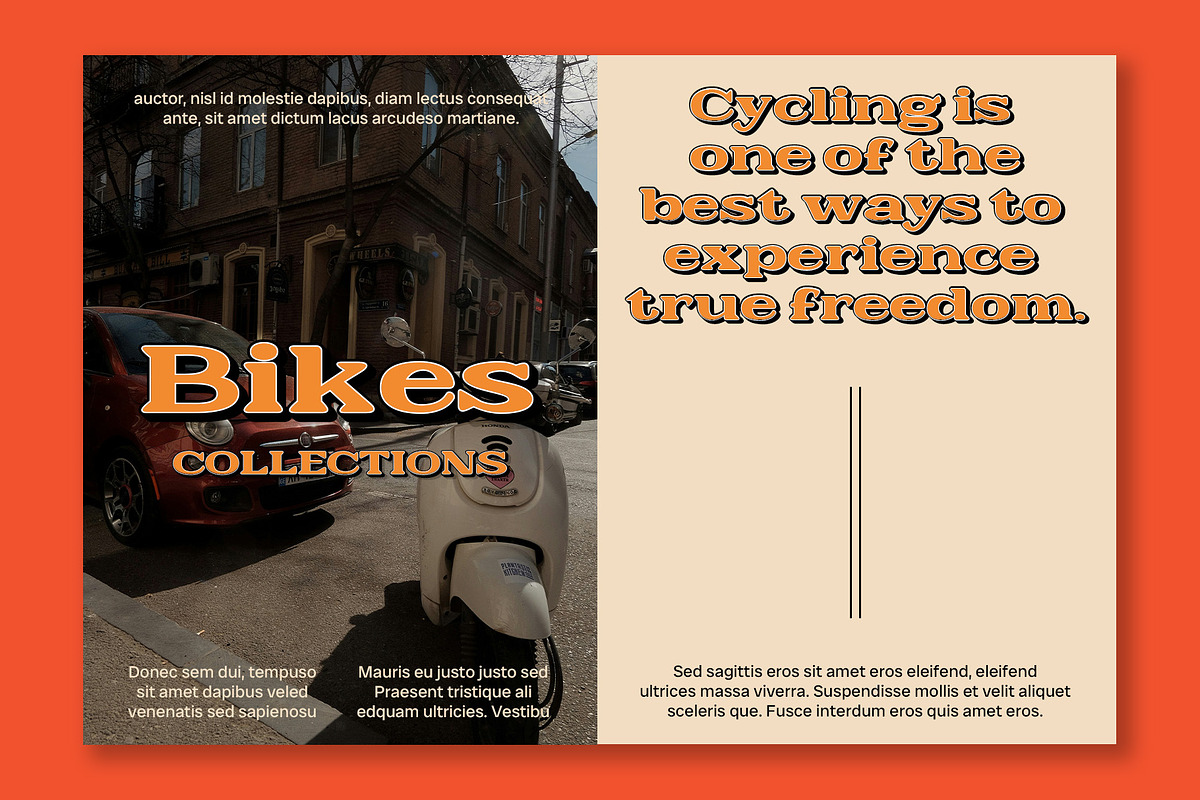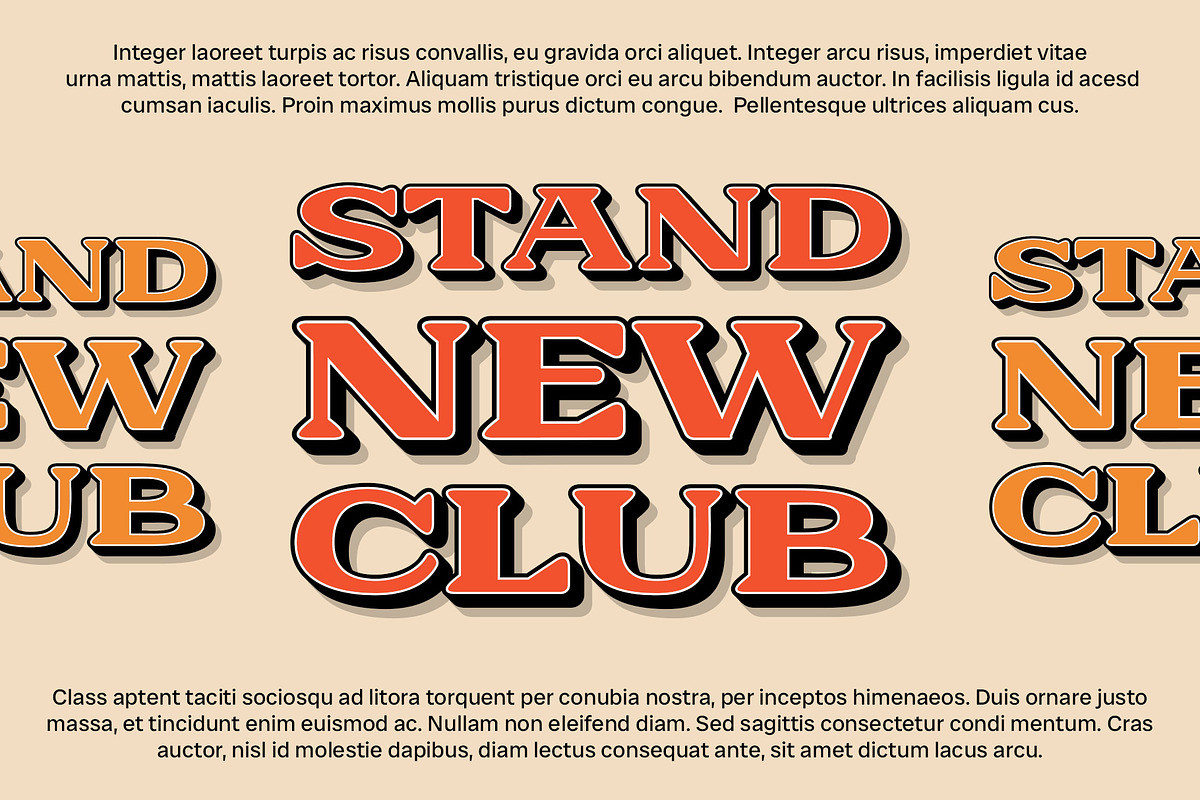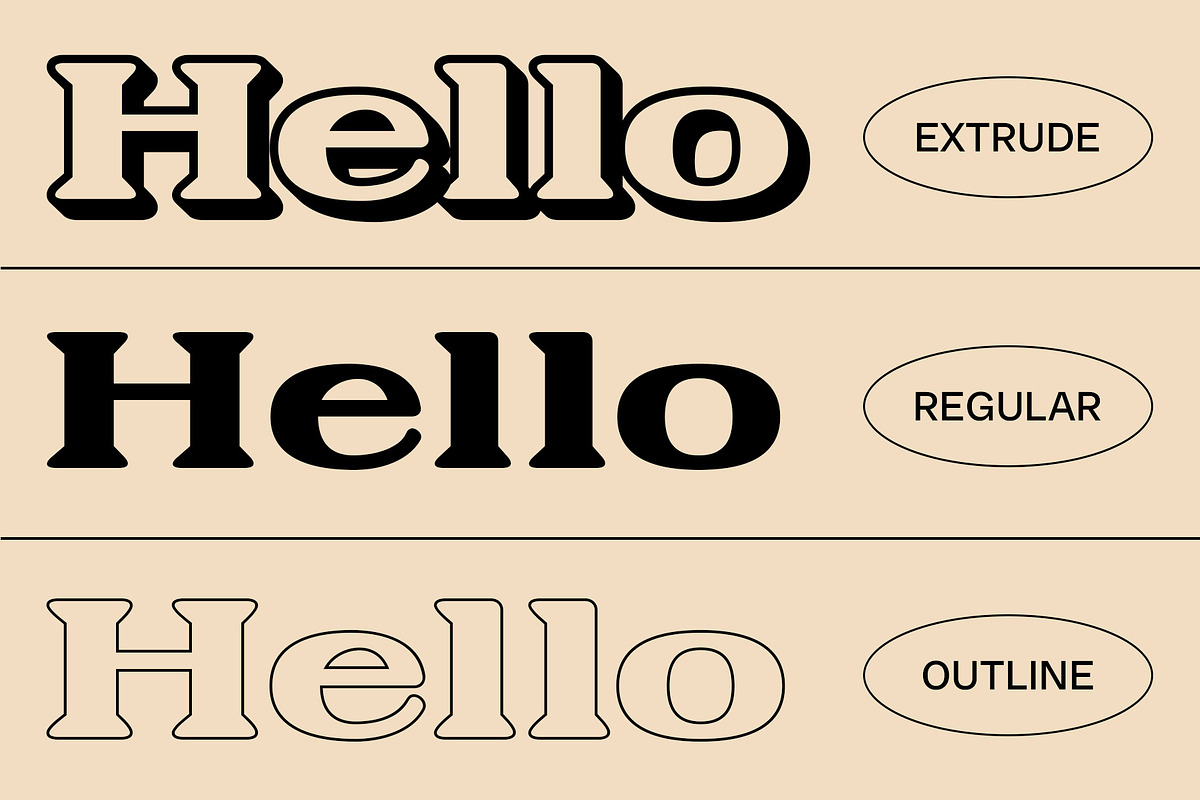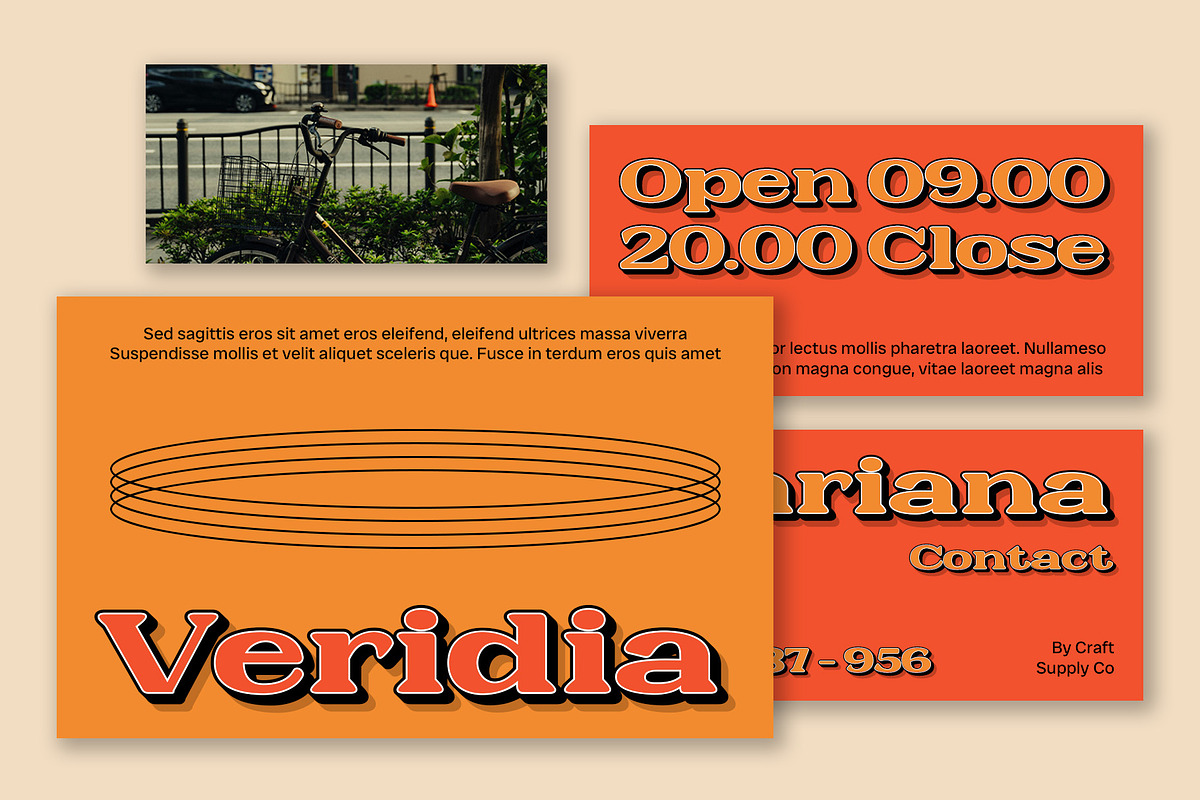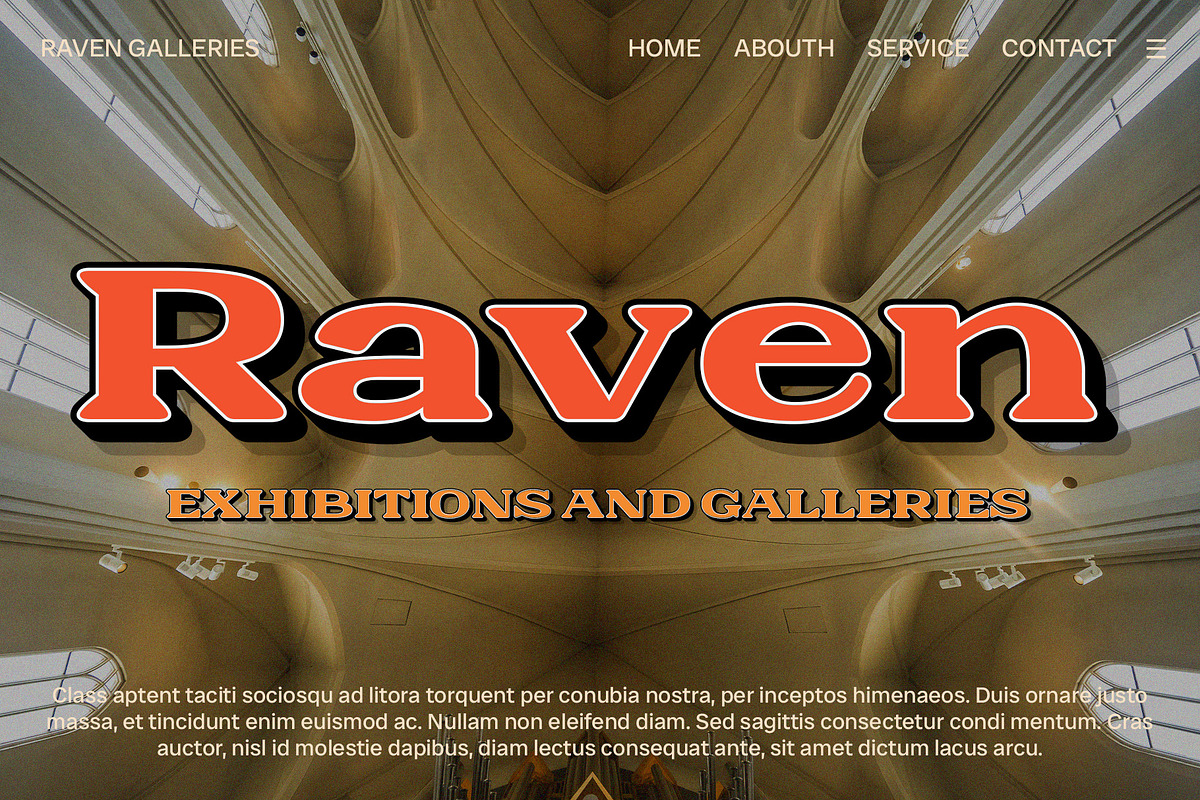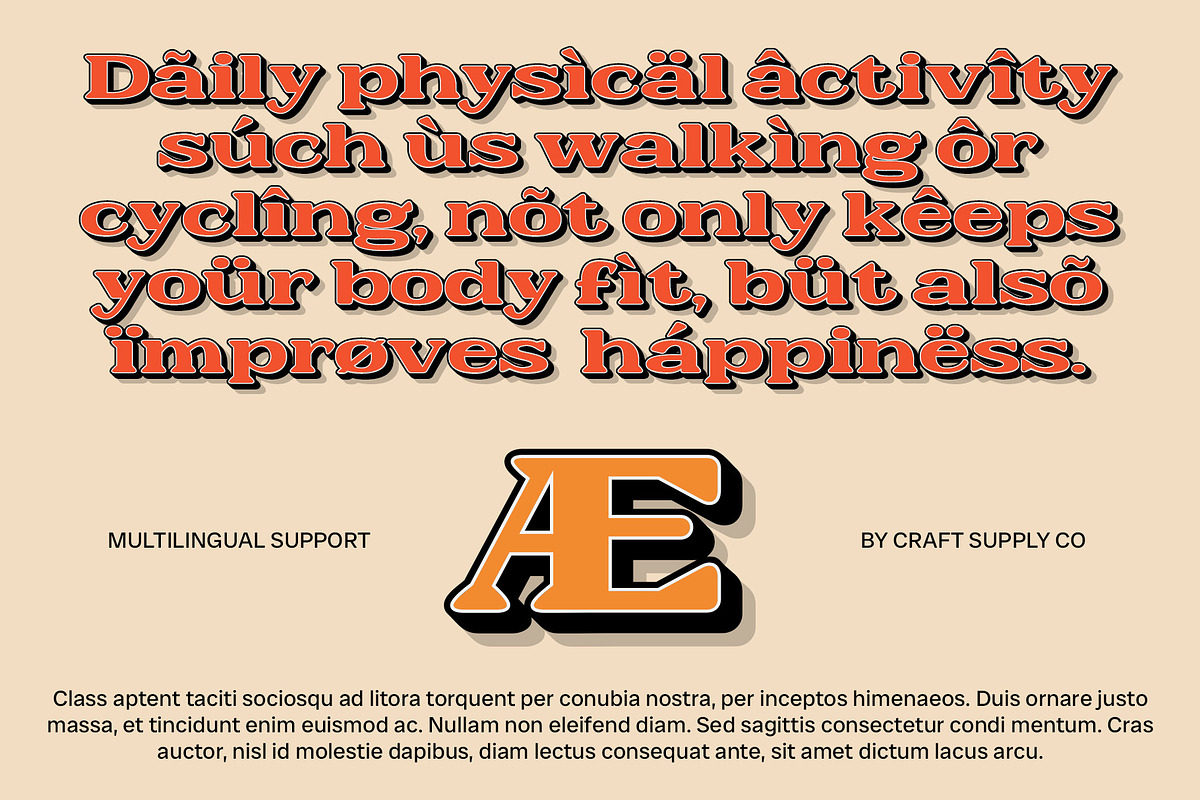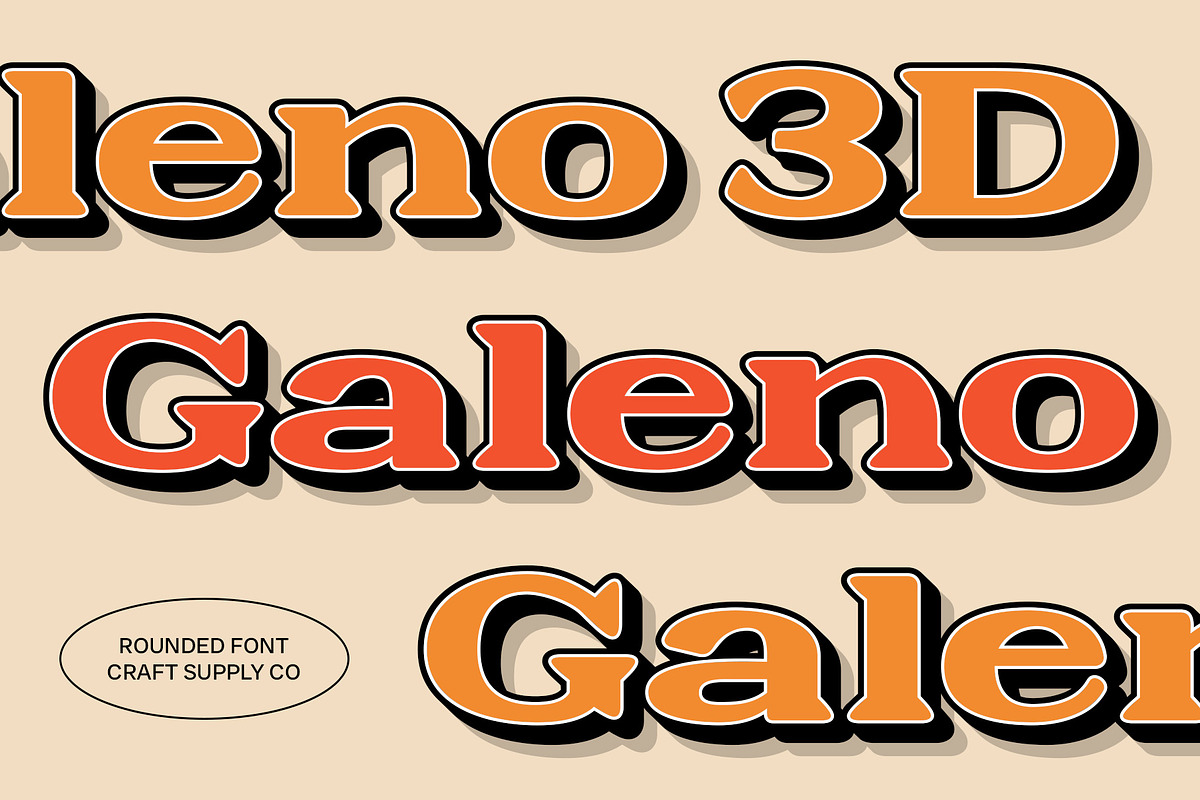
Galeno Rounded 3D
Galeno Rounded 3D: Retro Elegance with Depth
Classic and Elegant with a Nostalgic Touch Galeno Rounded 3D is a distinctive serif font that features an expanded form with rounded characters, evoking a classic retro feel. The font’s wide, elegant design is enhanced by a striking 3D effect, adding depth and dimension to its traditional aesthetic.
Ideal for Vintage-Inspired Designs The combination of rounded shapes and a 3D effect makes Galeno Rounded 3D perfect for designs that seek a vintage flair. Its classic elegance, coupled with a touch of nostalgia, ensures that your projects stand out with a timeless appeal.
Visual Depth and Nostalgic Appeal The 3D effect introduces visual depth, enhancing the retro-inspired design with a modern twist. This makes Galeno Rounded 3D an ideal choice for creative projects that require both a classic look and a standout visual impact.
Versatile for Various Applications Whether used for branding, posters, or promotional materials, this font rounded 3D brings a unique, elegant touch to any design. Its retro charm and sophisticated appearance make it suitable for a wide range of creative endeavors.
Elevate Your Designs Galeno Rounded 3D offers a blend of classic and contemporary styles, providing a luxurious and nostalgic finish. Perfect for designs aiming to capture attention with a vintage yet refined aesthetic, this font adds a distinctive flair to any project.